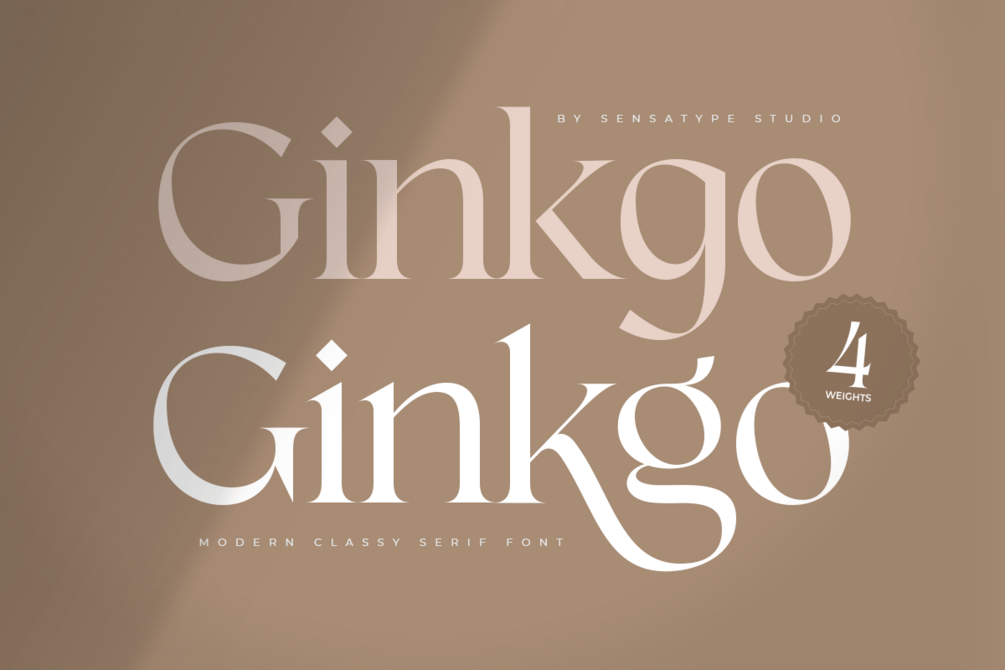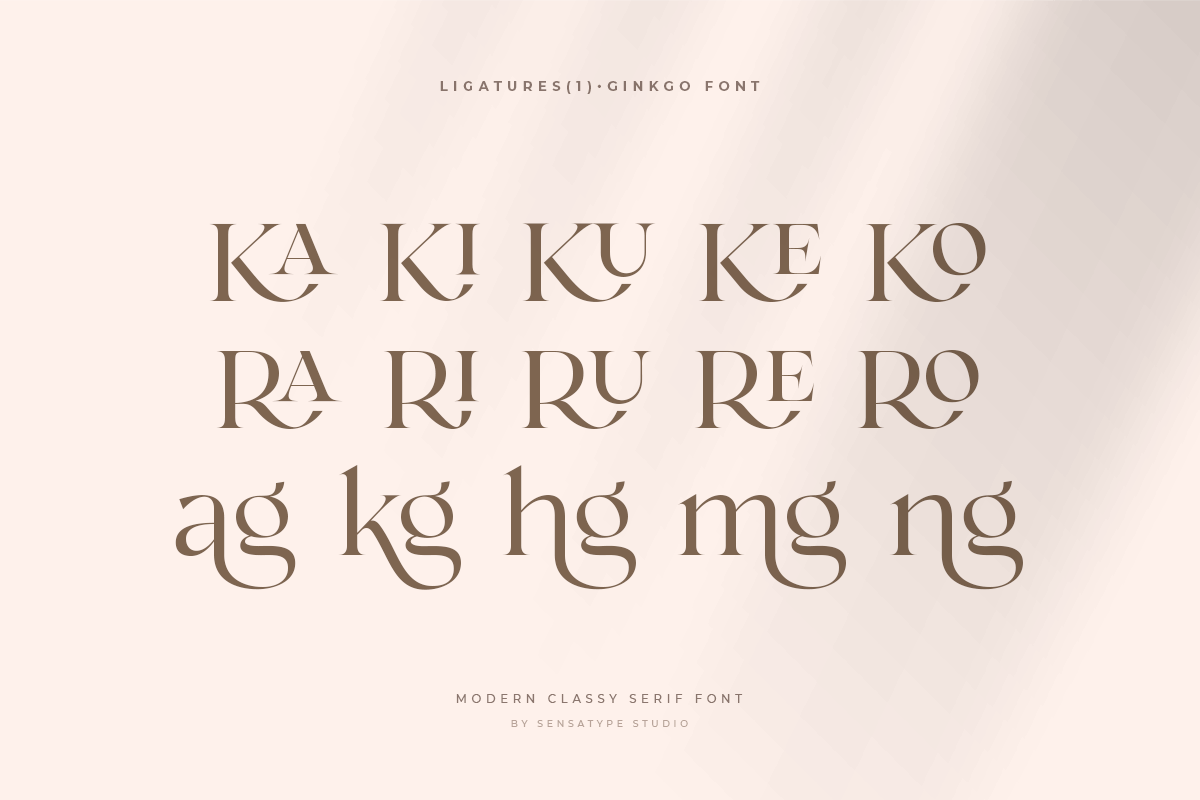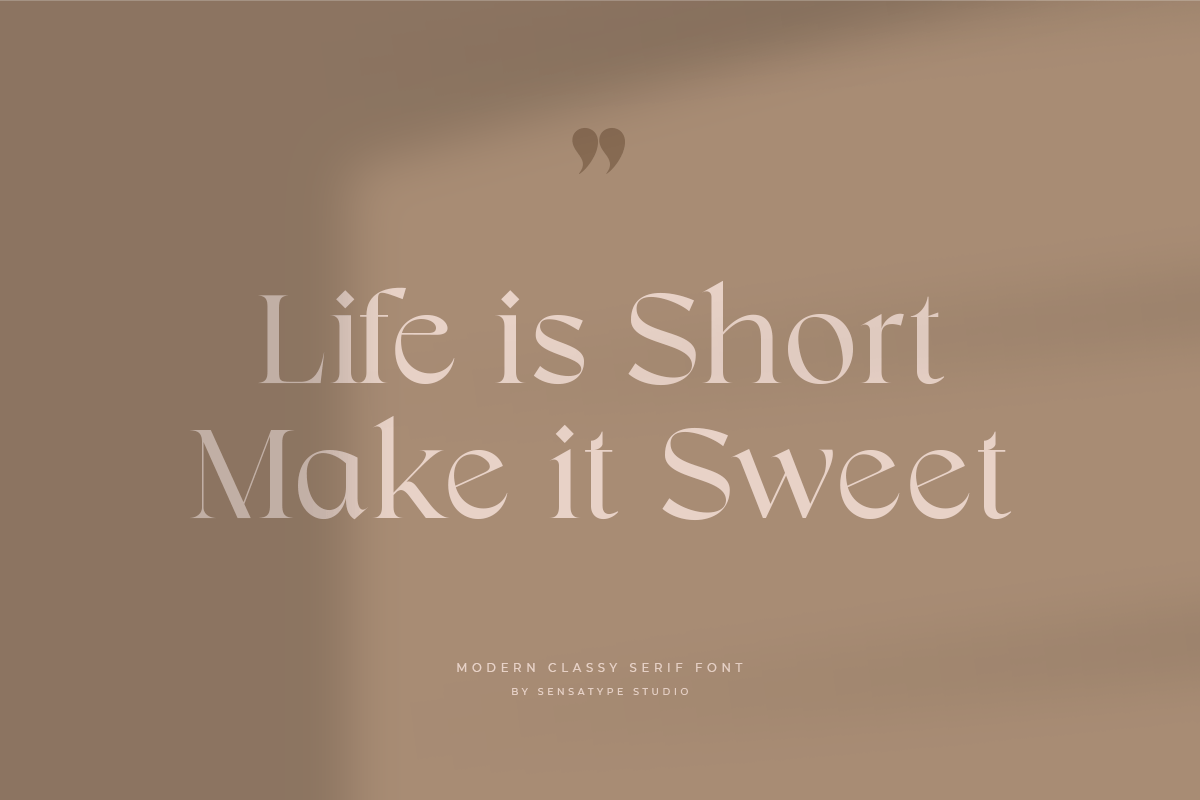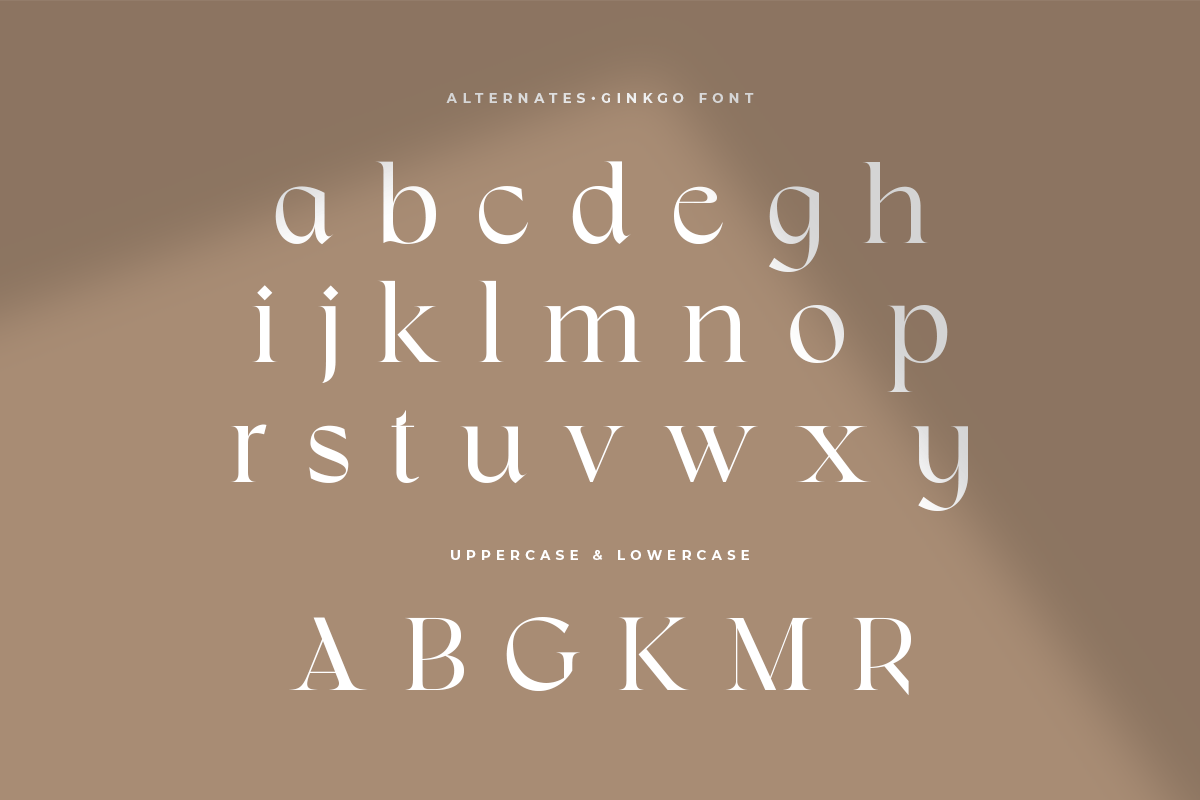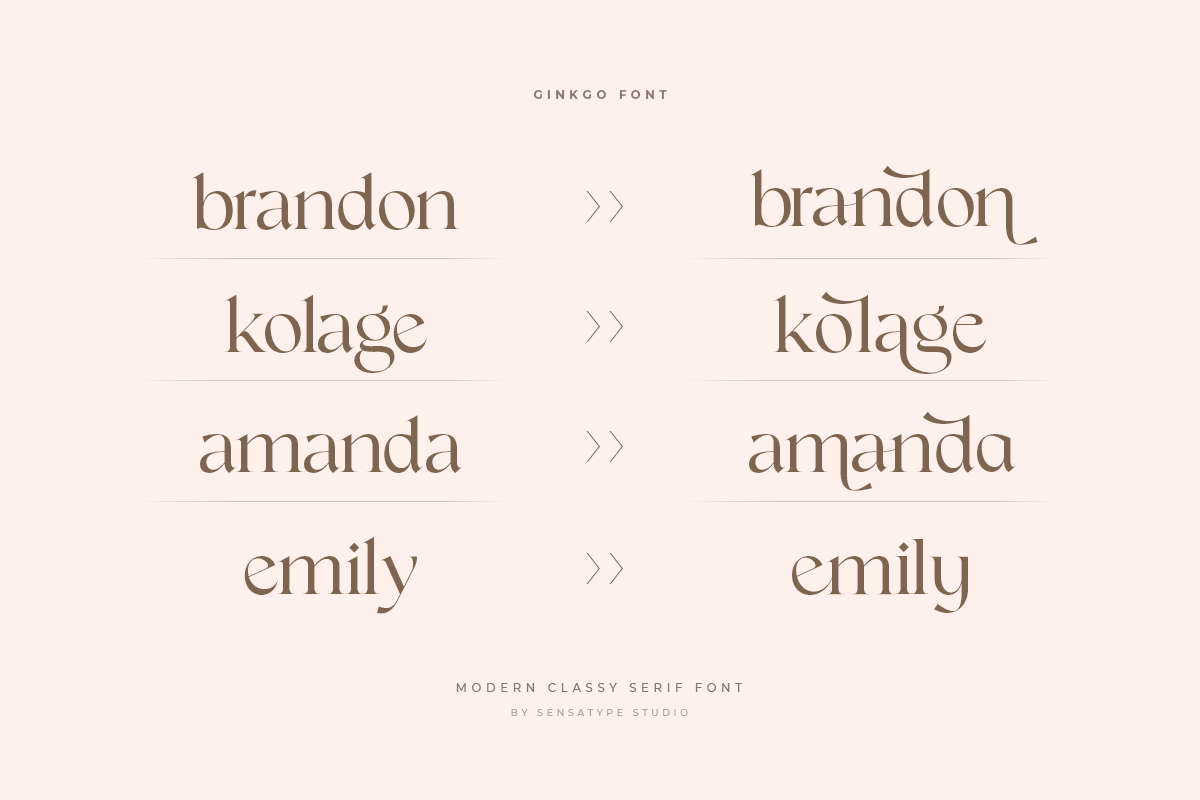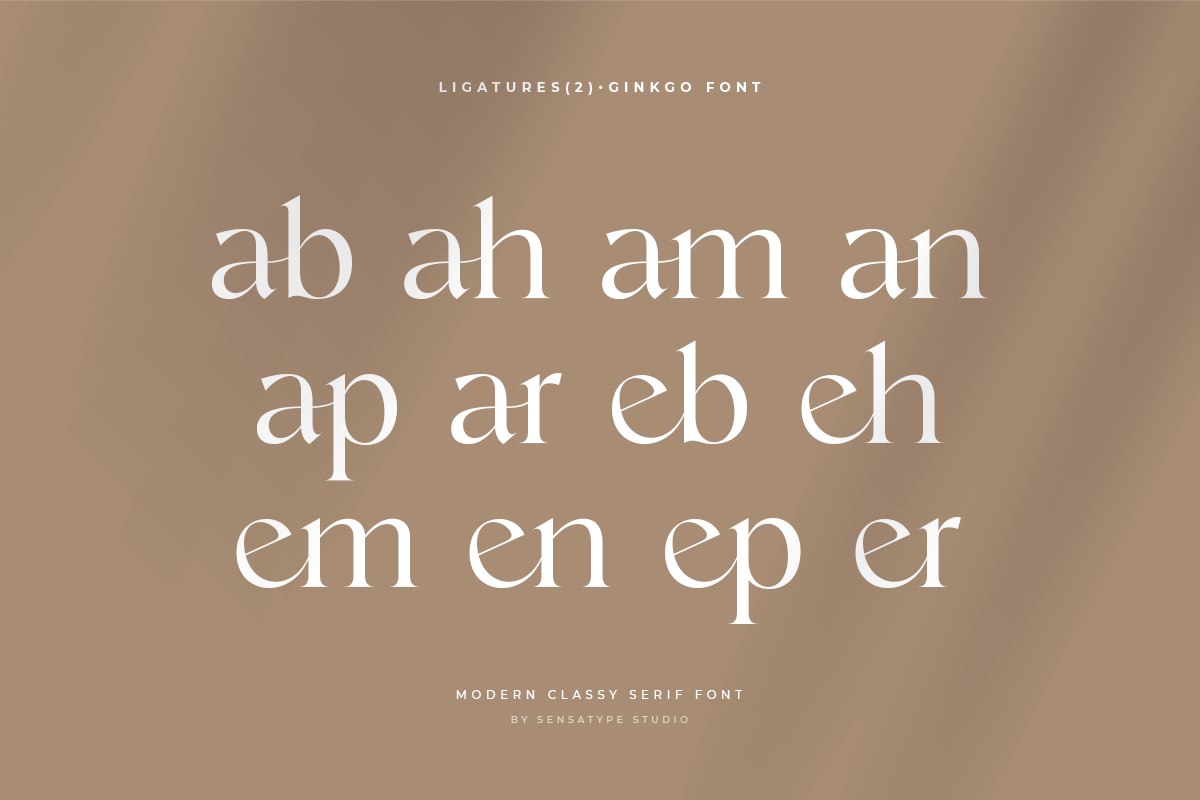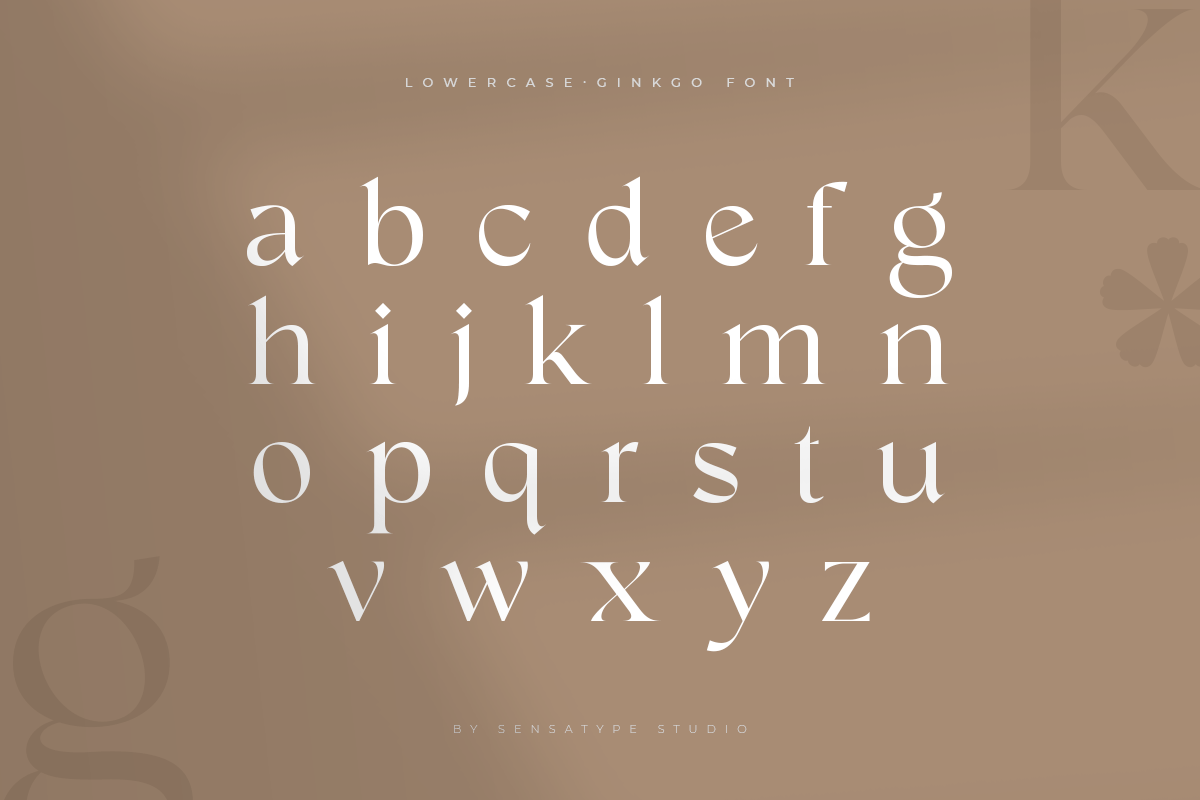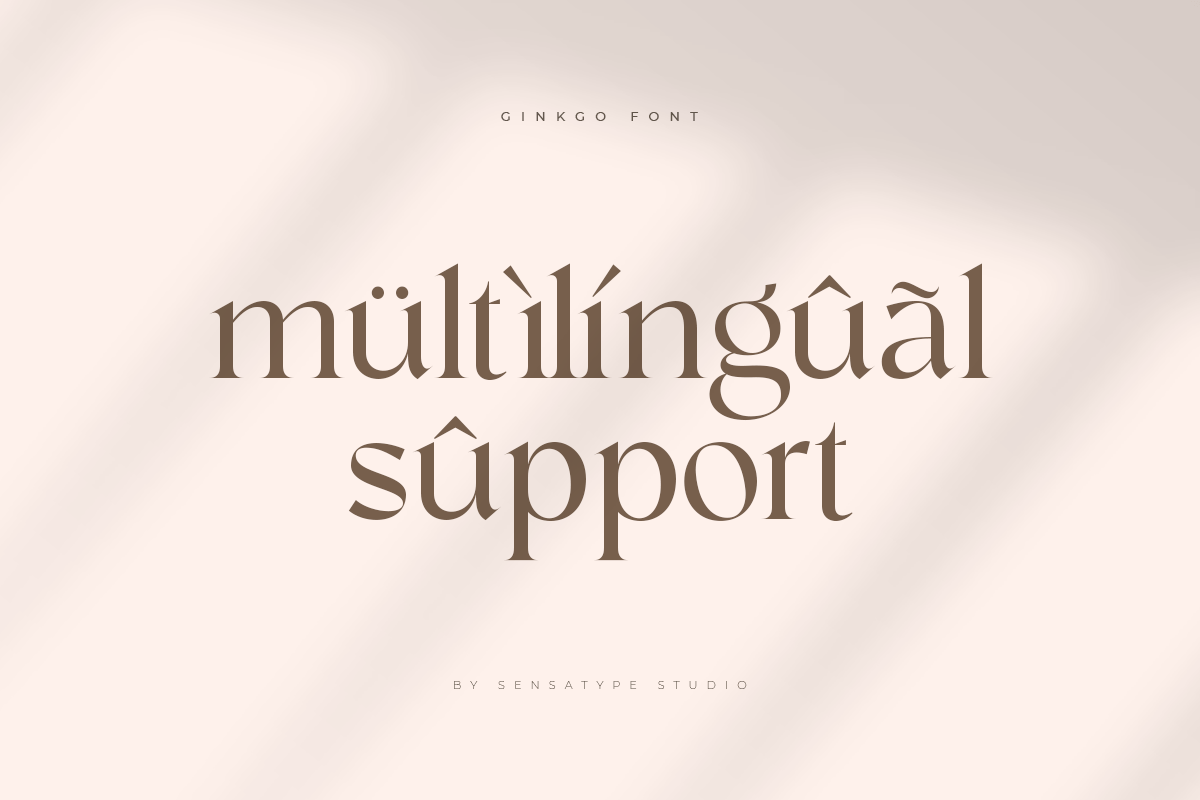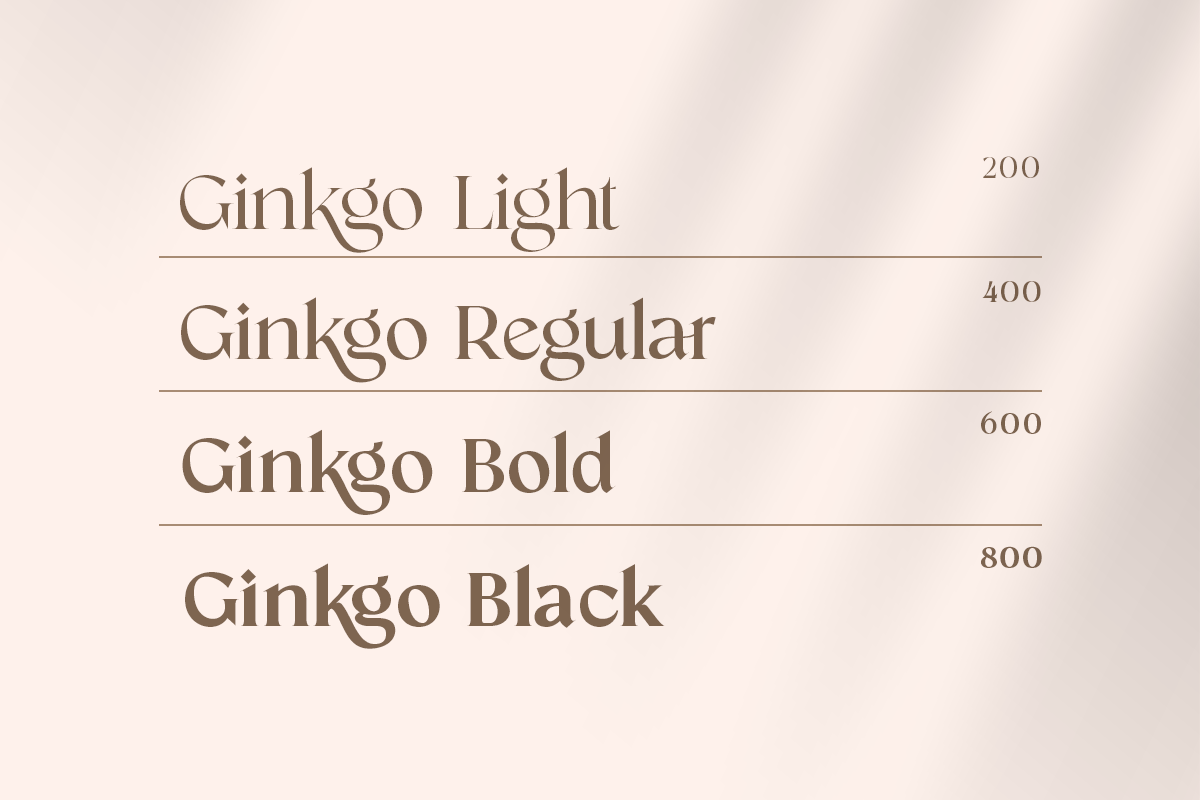
Ginkgo - Modern Classy Serif Font
Ginkgo is a modern classy serif font crafted to elevate your creative projects with sophistication. Ideal for branding, logos, editorial layouts, social media, and packaging, it combines timeless serif elegance with contemporary style.
With refined, legible letterforms, Ginkgo delivers a polished and professional appearance, making it perfect for both digital and print applications.
Ginkgo – Modern Classy Serif Font Features
• Elegant and modern serif character set
• Ideal for branding, logos, and stylish designs
• Uppercase, lowercase, numerals, and punctuation included
• OpenType features for extra versatility
• Multilingual support